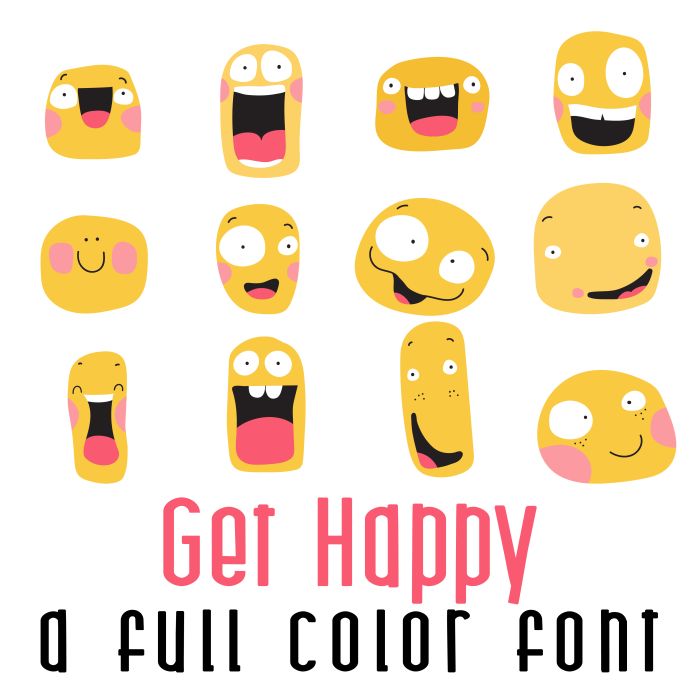
This fun full color font features 26 fun whimsical happy faces! Perfect for cards, crafts, parties, gifts, decor, planner stickers, classrooms, scrapbook pages and more!